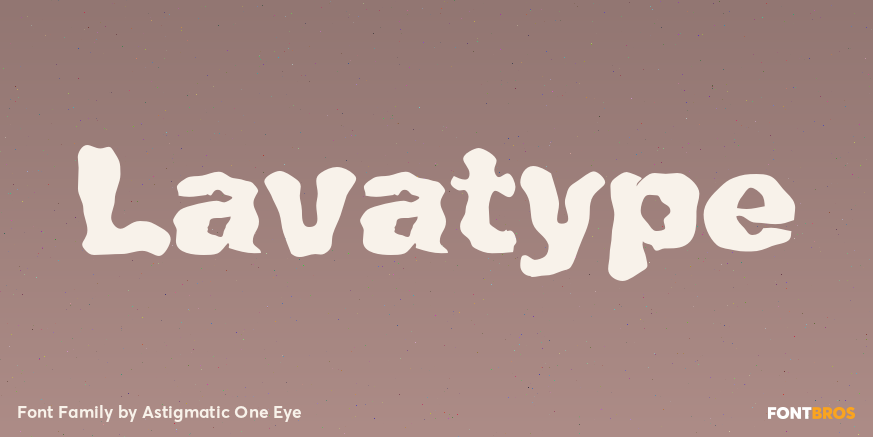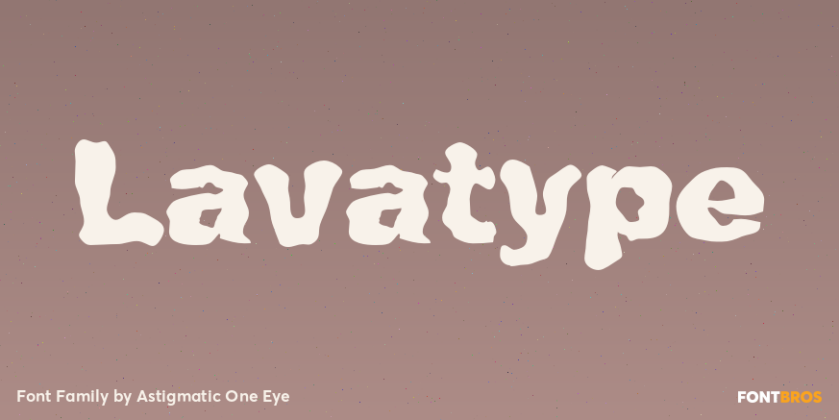
Lavatype
About Lavatype
Lavatype is an amorphous typestyle born from pools of bubbling magma. A highly reabable but playful typeface, it works well for headline and minimal text based needs. Just what is that sludge in those lava lamps anyways? Add some spunk funk to your designs…